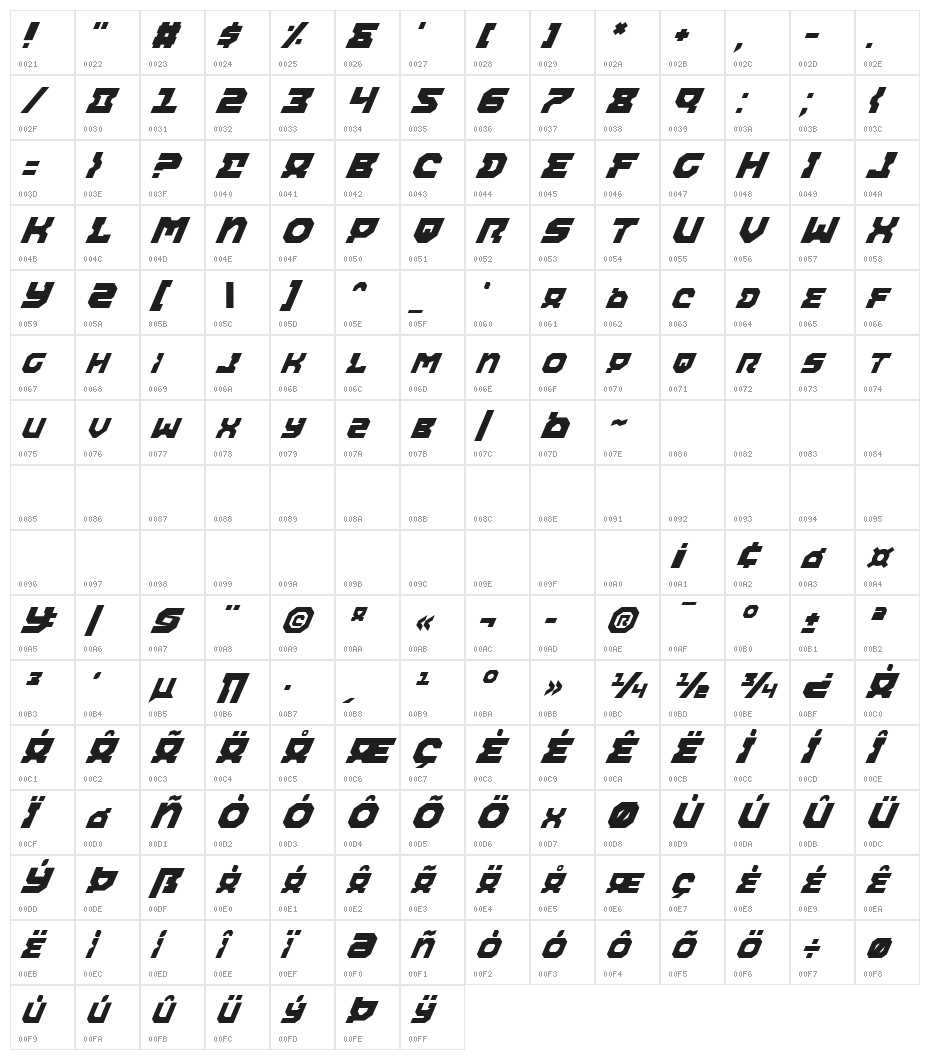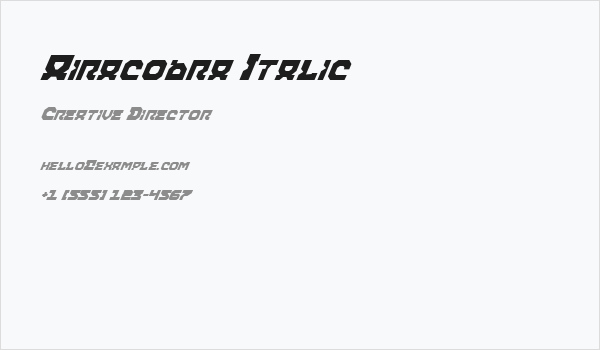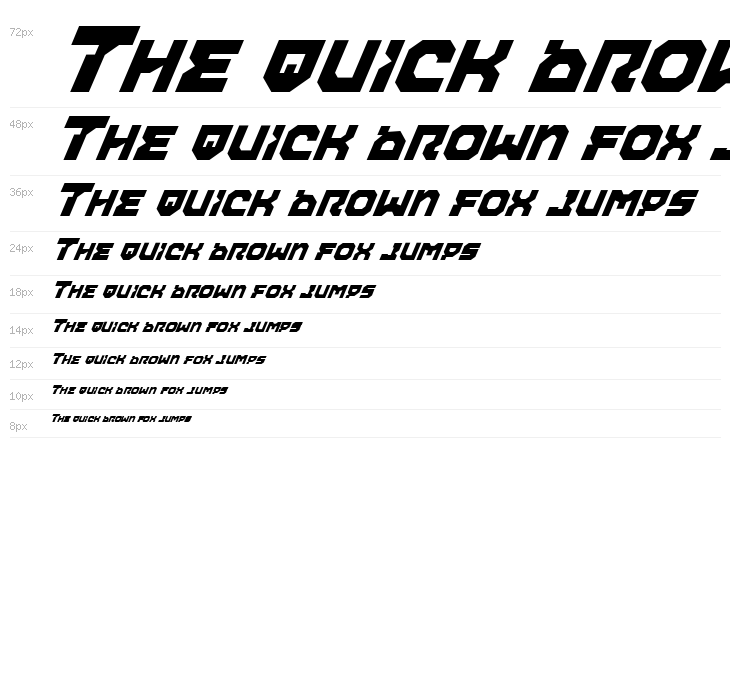
Airacobra Italic Font
Airacobra Italic Description
This font exhibits a bold and angular design, characterized by its sharp edges and geometric shapes. The italic slant adds a dynamic and forward-moving feel, enhancing its modern and aggressive appearance. Each character is distinct, with a consistent thickness that maintains readability while emphasizing its unique style. The uppercase and lowercase letters share a similar structure, creating a cohesive look across different text cases. The numerals and special characters are designed to match the overall aesthetic, ensuring uniformity throughout. This font is ideal for projects that require a strong visual impact.
Proposed ProjectsIdeal for branding, sports team logos, video game titles, and dynamic posters.